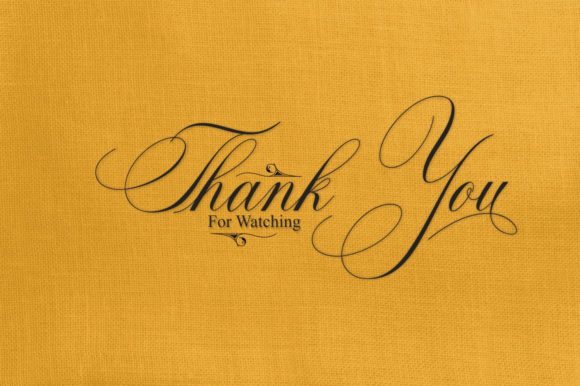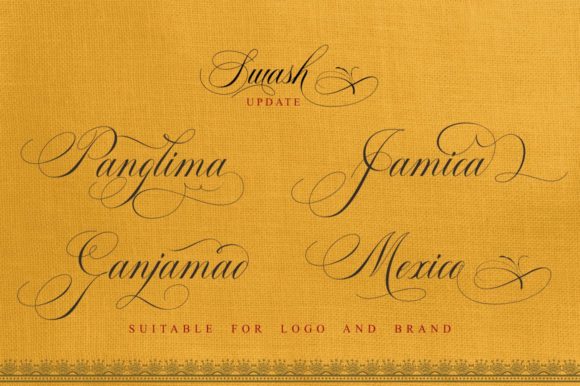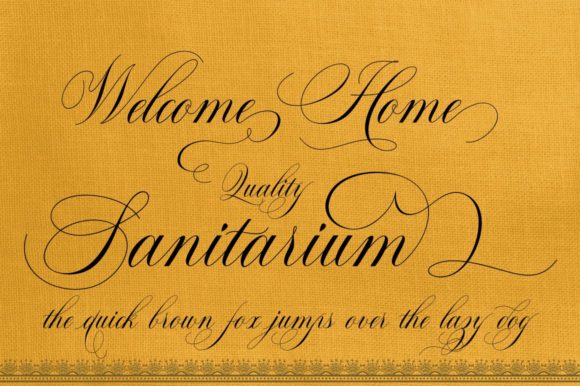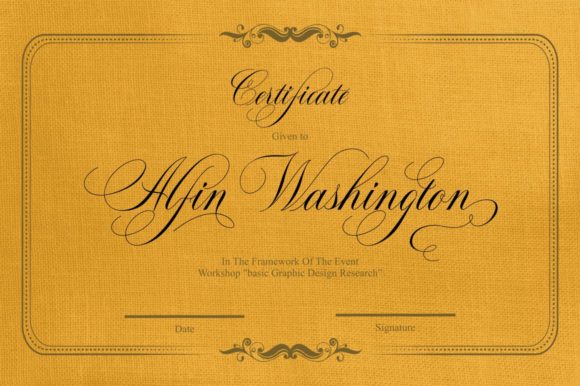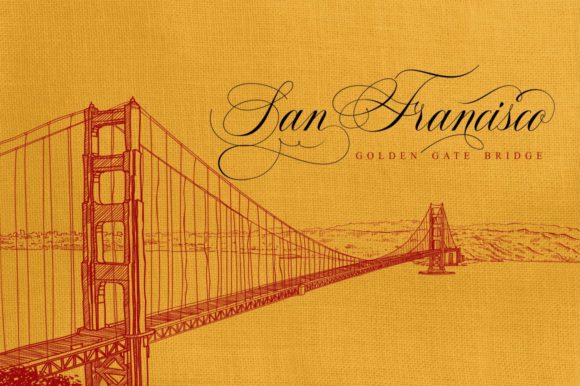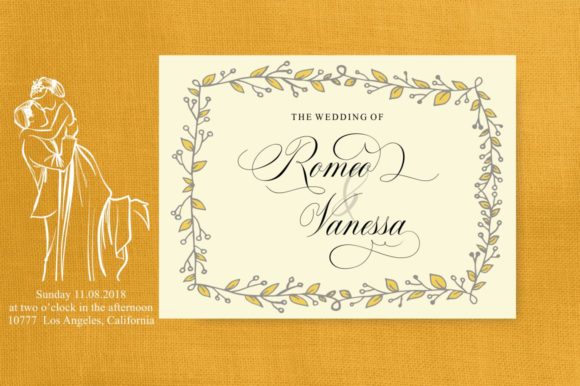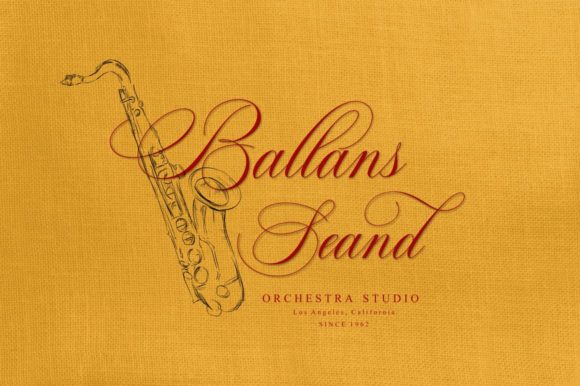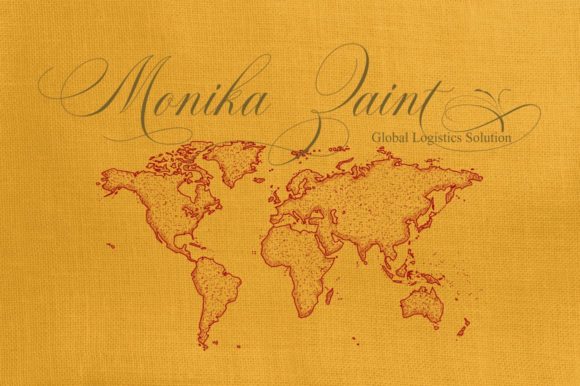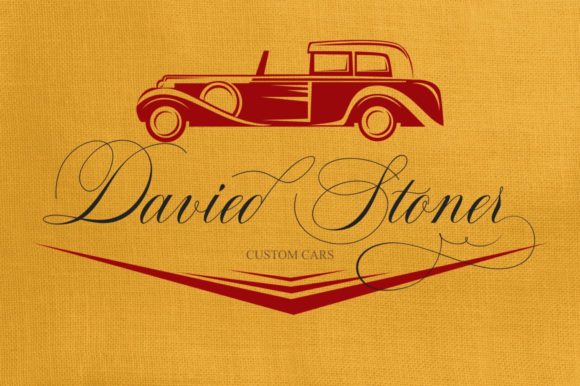
Sinday College Font
About Sinday College Font
Sinday College is a delicate font carefully created with a touch of elegance. Use it to add that special effortless touch to any design idea you can think of!